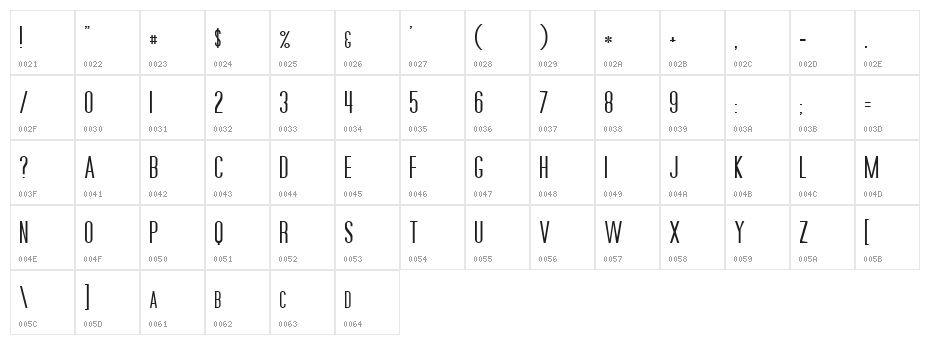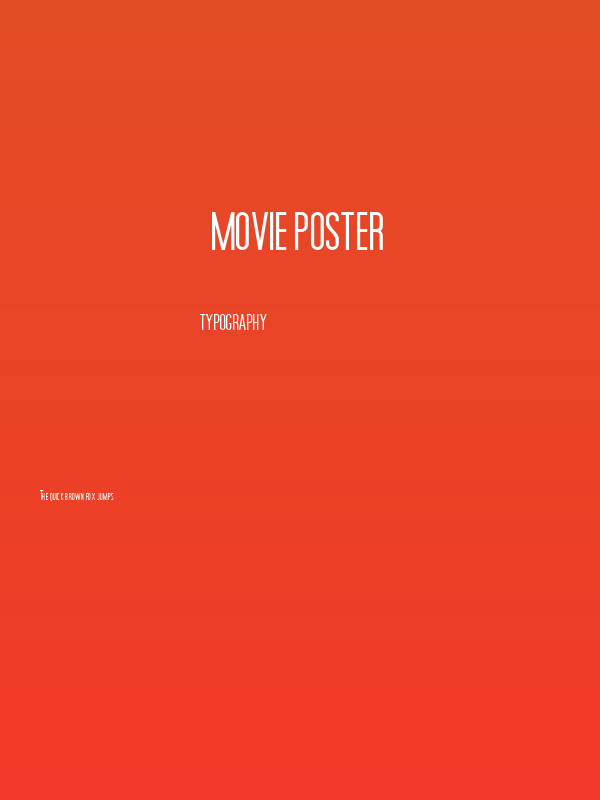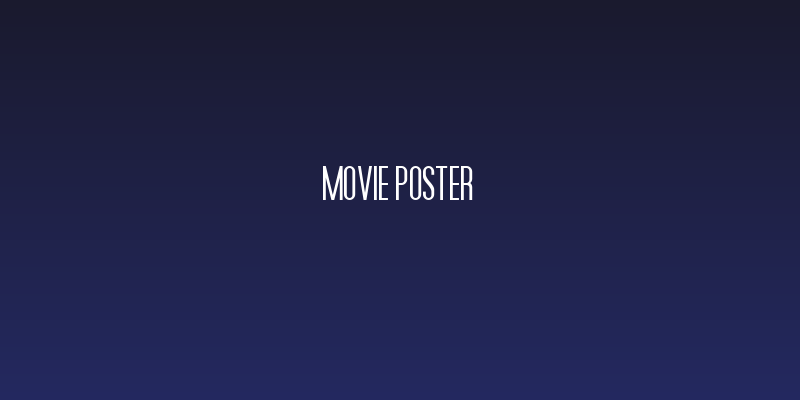
Movie Poster Font
Movie Poster Description
This font features a tall, narrow design with clean, straight lines and a modern aesthetic. The uppercase letters are bold and elongated, giving a sense of height and sophistication. The lowercase letters maintain the same narrow structure, ensuring consistency across the typeface. Numbers are similarly styled, with a uniform height that matches the uppercase letters. Special characters are included, maintaining the overall sleek and contemporary feel. The font's design is highly legible, making it suitable for various applications where clarity and style are essential.
| Proposed Projects | Ideal for movie posters, advertising, branding, and editorial design where a modern and impactful look is desired. |